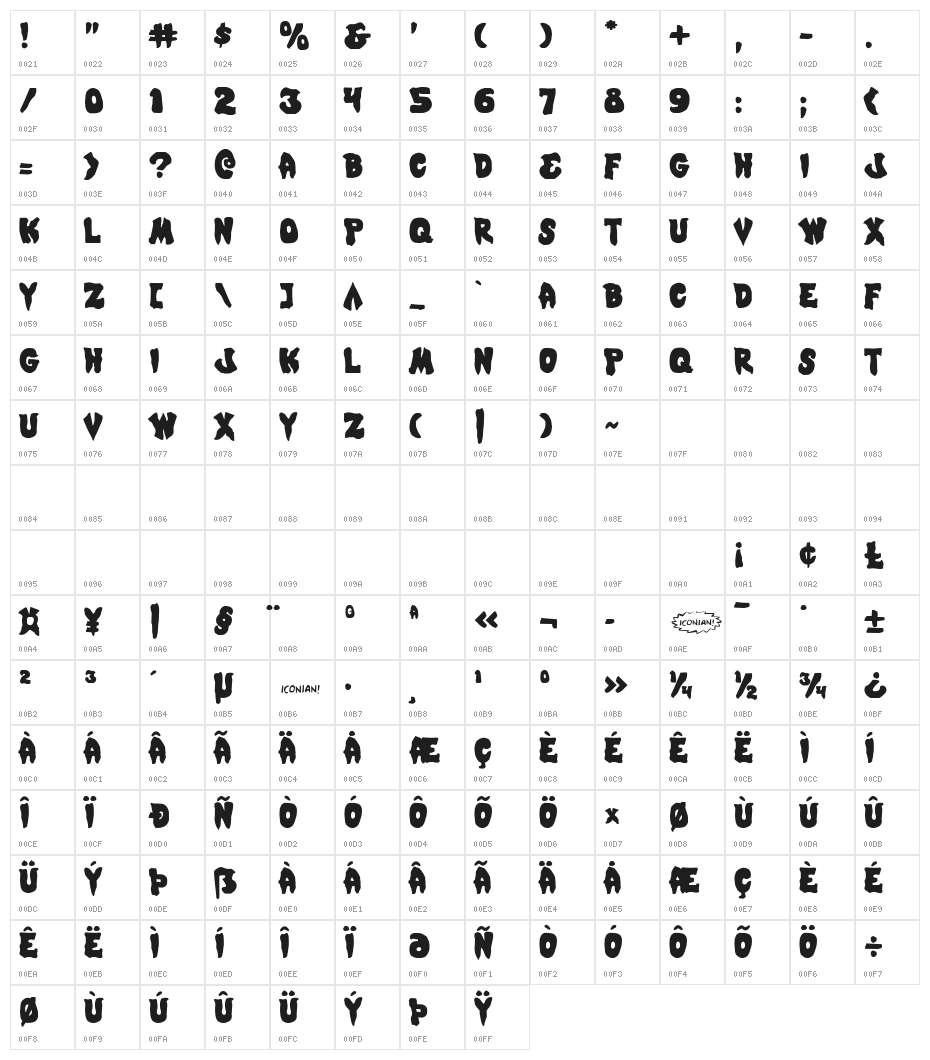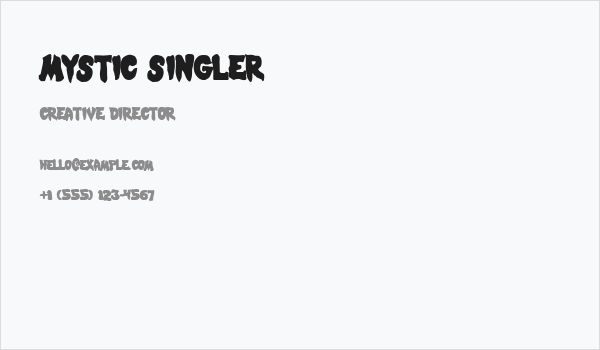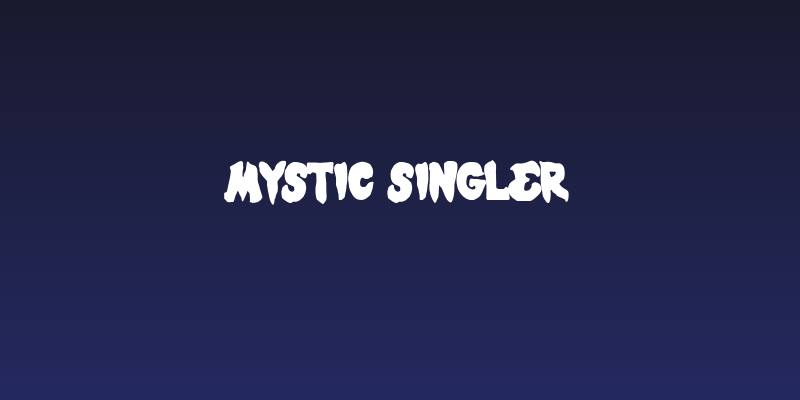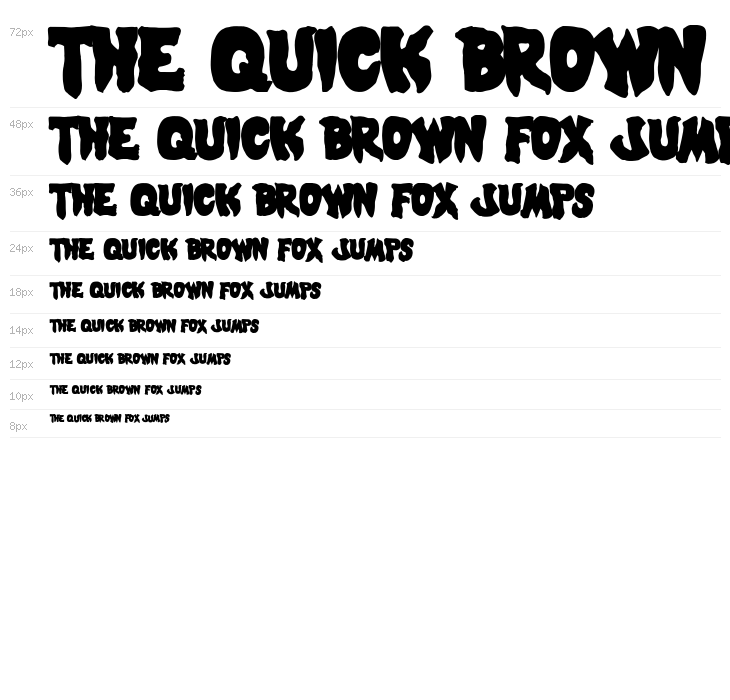
Mystic Singler Font
Mystic Singler Description
This font features a bold, playful style with exaggerated, irregular shapes that give it a whimsical and artistic appearance. The characters are heavily weighted, with thick strokes and a slightly uneven baseline, adding to its quirky charm. The overall design is reminiscent of hand-drawn lettering, with a sense of movement and energy. The uppercase and lowercase letters maintain a consistent style, while the numbers and special characters complement the overall aesthetic. This font is ideal for projects that require a fun and eye-catching look.
| Overall Style | Playful, Artistic |
| Proposed Projects | Ideal for children's book covers, playful branding, posters, and creative invitations. |